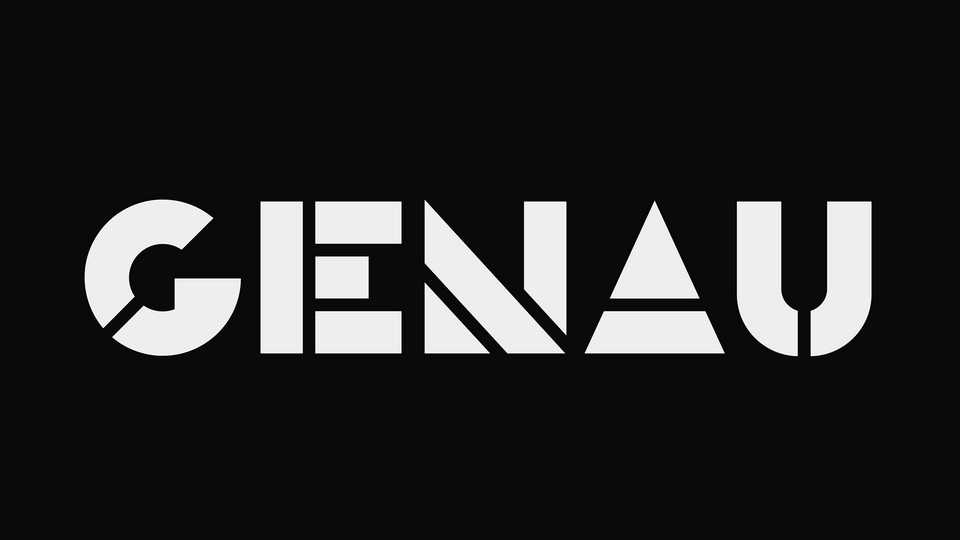
Download GENAU font, a geometric stencil display typeface. GENAU font can bring a ton of personality to signage, branding, editorial and packaging projects where you can afford to be a bit experimental.
Designer: Jota Jota